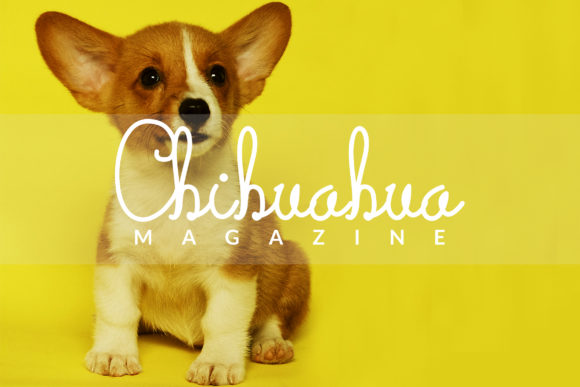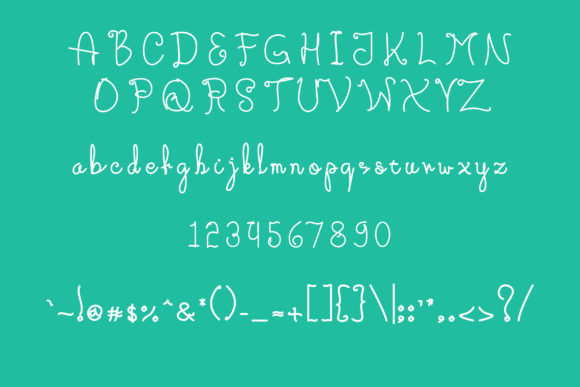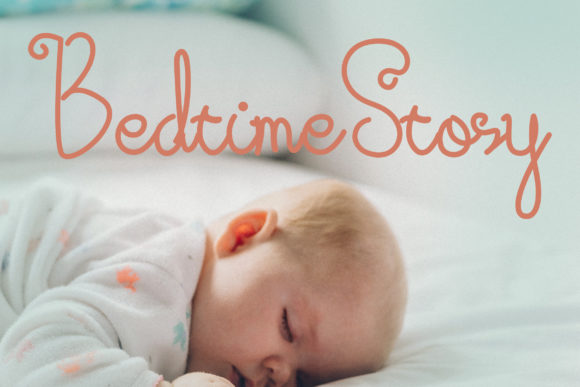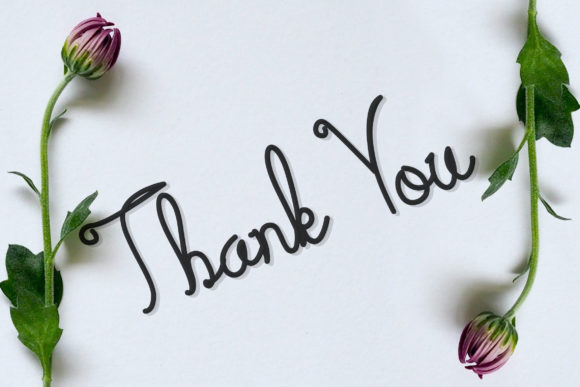
The Adipilia Font: A Sweet and Friendly Script to Elevate Your Designs
I’ll never forget the moment I stumbled upon the Adipilia font. I was working on a project for a client’s wedding invitation, and I was struggling to find the perfect script font that would capture the warm and cozy feel of the event. The client wanted something that would make their guests feel like they were part of a special celebration, and I was determined to deliver. That’s when I discovered Adipilia, and it instantly became my go-to font for the project.
With its sweet, fun, and friendly vibe, Adipilia brought the perfect amount of charm and personality to the invitation. The warm feel of the font made it instantly relatable, and it was exactly what I needed to make the project stand out. In this article, I’ll share my honest review of Adipilia, provide a practical guide on how to use it on different platforms, and explore similar fonts that you might love.
- ✅ Adipilia has a unique and authentic charm that sets it apart from other script fonts.
- ✅ The font is incredibly versatile and works well for a variety of design projects, from wedding invitations to social media graphics.
- ✅ Adipilia has a warm and friendly feel that’s perfect for creating a cozy and inviting atmosphere.
- ⚠️ Adipilia may not be the best choice for very formal or professional designs, as it has a distinctly playful and casual vibe.
- ⚠️ Some users may find that the font’s quirks and imperfections can make it difficult to read at very small sizes.
The Story Behind Adipilia
Adipilia was designed with the intention of creating a font that would capture the warmth and personality of handwritten script. The designer wanted to create a font that would feel approachable and friendly, while still being elegant and refined. The result is a font that’s perfect for a wide range of design projects, from wedding invitations to social media graphics.
Q: What is Adipilia font best used for?
A: Adipilia font is best used for designs that require a warm and friendly feel, such as wedding invitations, social media graphics, and branding materials.